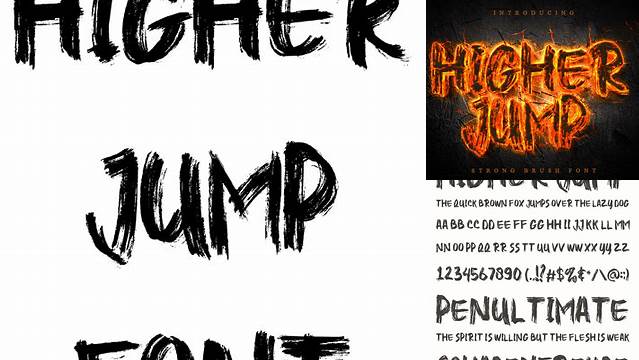
Higher Jump Font: Free Download & Creative Uses
H2: What Makes Higher Jump Font Special?
So, what exactly sets the Higher Jump Free Font apart from the crowd? Well, it's not just another run-of-the-mill typeface. This font exudes a sense of playful movement and a distinctive character. Its unique letterforms, often featuring slightly irregular lines and a bouncy baseline, give it a hand-drawn, almost whimsical feel. This makes it perfect for projects where you want to convey a sense of fun, energy, and approachability. It's the kind of font that makes people smile! Think about using it for children's books, quirky branding, or anything that needs a touch of lightheartedness. The Higher Jump font is a versatile tool that can elevate your creative projects, making them memorable and engaging. Its distinct style ensures your designs stand out, capturing attention and leaving a lasting impression.
H2: Best Uses for Higher Jump Font
Okay, now that we know what makes the Higher Jump Free Font so awesome, let's talk about where you can actually use it. This font is a total chameleon, adapting to various design needs. Imagine using it for eye-catching headlines on your website, making your brand name memorable, or even adding a personal touch to your social media graphics. It shines in situations where you need to convey a friendly and approachable vibe. Think about logos for small businesses, posters for community events, or even invitations for a birthday party. The key is to use it strategically. Don't overwhelm your design with it; instead, use it to highlight key elements and add that extra touch of personality. By understanding its strengths, you can leverage the Higher Jump font to create designs that are both visually appealing and effective in communicating your message. Its versatility makes it a valuable asset in any designer's toolkit.
H2: Pairing Higher Jump with Other Fonts
Even the coolest font needs a buddy sometimes! The Higher Jump Free Font, with its distinctive personality, pairs well with simpler, more neutral fonts. Think about using it for headings and pairing it with a clean sans-serif font like Arial or Helvetica for body text. This creates a nice contrast and ensures readability. Alternatively, you could pair it with a classic serif font like Times New Roman or Garamond for a more sophisticated look. The key is to find a balance between the playful nature of Higher Jump and the understated elegance of your secondary font. Experiment with different combinations to see what works best for your specific project. A good font pairing can elevate your design and make it more visually appealing and effective.
H2: Higher Jump Font Alternatives
Okay, so maybe the Higher Jump Free Font isn't exactly what you're looking for. No worries! There are tons of other awesome free fonts out there that offer a similar vibe. Fonts like Bubblegum Sans, Luckiest Guy, and Patrick Hand are all great alternatives with a playful and hand-drawn feel. They each have their own unique quirks and personalities, so it's worth exploring them to see which one best suits your project. Don't be afraid to experiment and try out different fonts until you find the perfect match. The world of typography is vast and full of exciting possibilities!
H3: Higher Jump Font for Logos
Using the Higher Jump Free Font for logos can be a fantastic way to inject personality and memorability into your brand identity. Its playful and dynamic nature makes it particularly suitable for businesses that want to project a friendly, approachable, and creative image. Think about using it for a children's clothing brand, a bakery, or a community arts organization. The font's unique letterforms will help your logo stand out and capture attention. However, it's important to use it strategically. Make sure the font aligns with your brand values and target audience. Also, consider the overall design of the logo and how the font interacts with other elements. A well-designed logo using the Higher Jump font can create a lasting impression and help your brand connect with its audience on a deeper level.
H3: Higher Jump Font for Websites
Incorporating the Higher Jump Free Font into your website design can add a touch of whimsy and personality to your online presence. It's especially effective for websites that cater to a younger audience or those that want to create a more playful and engaging user experience. Use it for headings, calls to action, or even within graphics to create visual interest. However, be mindful of readability. While the font is eye-catching, it might not be the best choice for large blocks of body text. Pair it with a more legible font for the main content to ensure a comfortable reading experience. A strategic use of the Higher Jump font can make your website more memorable and help you stand out from the competition.
H3: Higher Jump Font for Social Media
Social media is all about grabbing attention, and the Higher Jump Free Font can definitely help you do that. Use it to create eye-catching graphics, announcements, and promotional posts that stand out in the crowded newsfeed. Its playful and energetic style is perfect for conveying a sense of fun and excitement. Think about using it for event promotions, contest announcements, or even just to add a bit of personality to your regular posts. Just remember to keep your designs clean and uncluttered, and use the font strategically to highlight key messages. A well-designed social media post using the Higher Jump font can attract attention, increase engagement, and help you build a stronger brand presence online.
H3: Using Higher Jump Font in Print Materials
The Higher Jump Free Font isn't just for digital designs; it can also be used effectively in print materials. Think about using it for posters, flyers, brochures, or even business cards. Its unique letterforms will help your designs stand out and make a lasting impression. It's particularly well-suited for projects that need to convey a sense of fun, creativity, or approachability. Consider using it for event invitations, marketing materials for small businesses, or even educational resources for children. Just make sure the font is legible at the intended print size and that it complements the overall design of your print materials. A well-executed print design using the Higher Jump font can create a memorable and impactful brand experience.
H3: The Longevity of Higher Jump Font in Design Trends
While design trends come and go, the Higher Jump Free Font possesses a timeless quality that ensures its continued relevance in various design projects. Its cheerful and approachable nature makes it adaptable to different styles and aesthetics, ensuring its longevity in the ever-evolving world of design. Whether used in classic or contemporary designs, the Higher Jump Font remains a valuable asset for designers looking to create engaging and memorable experiences.